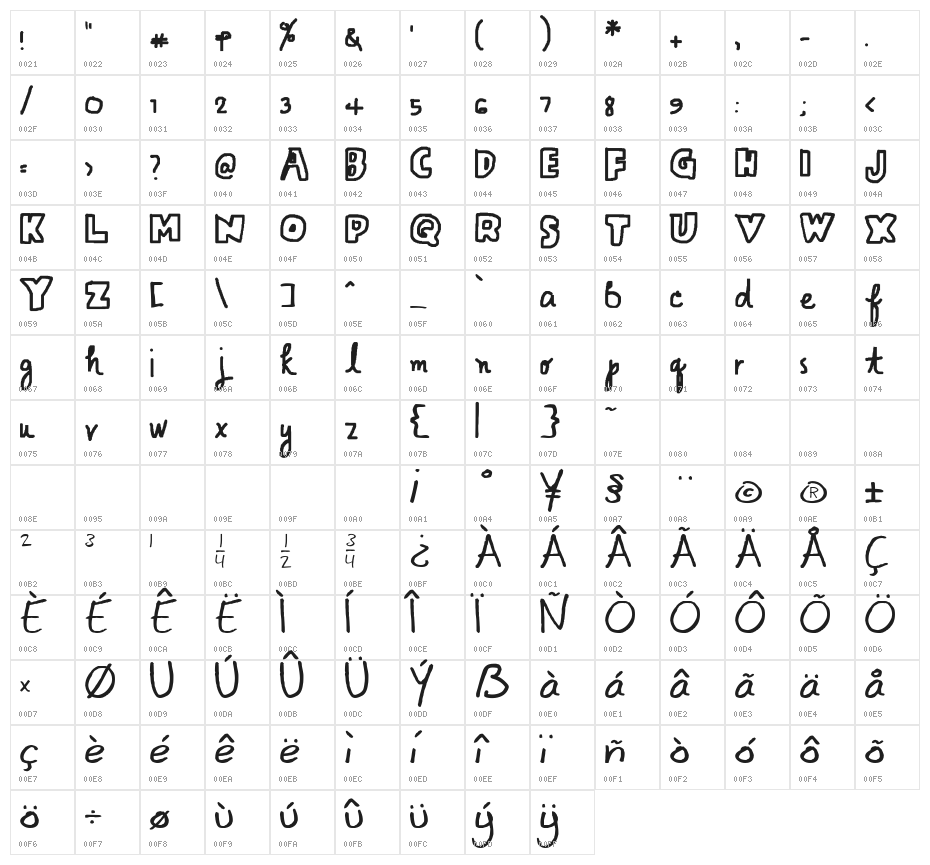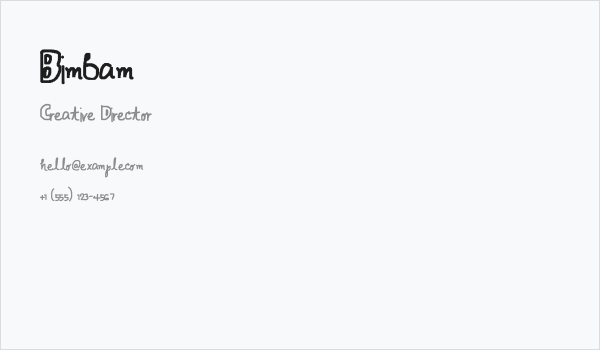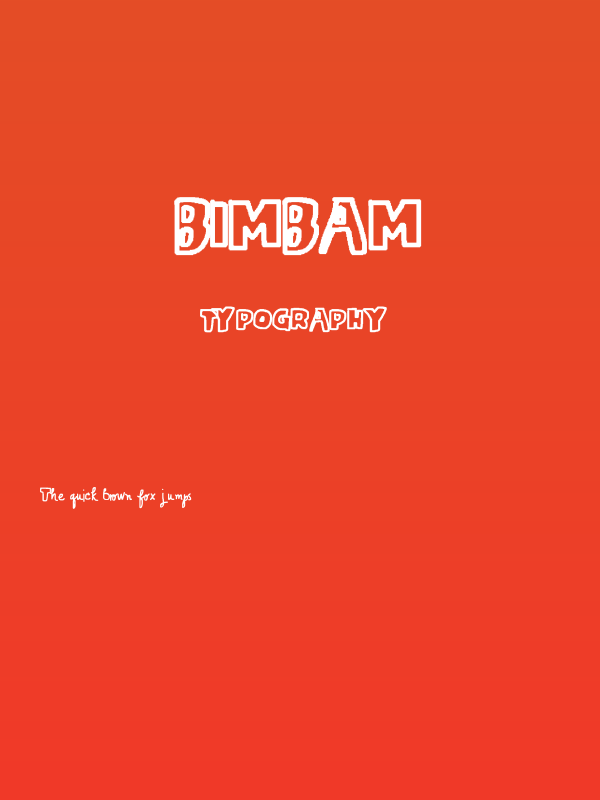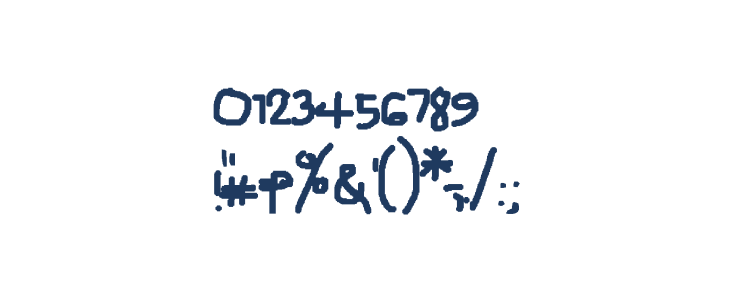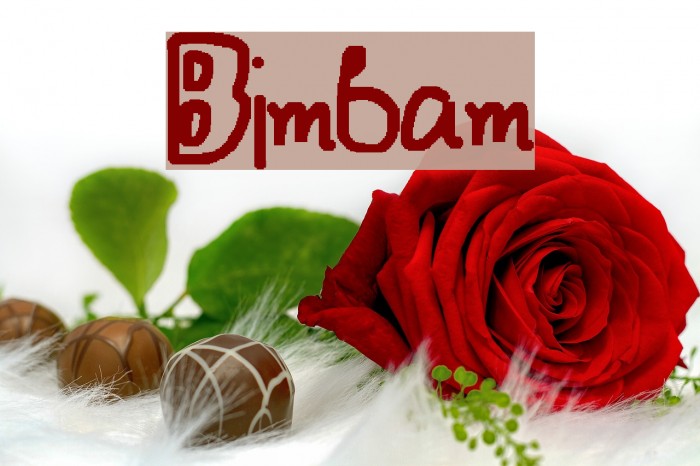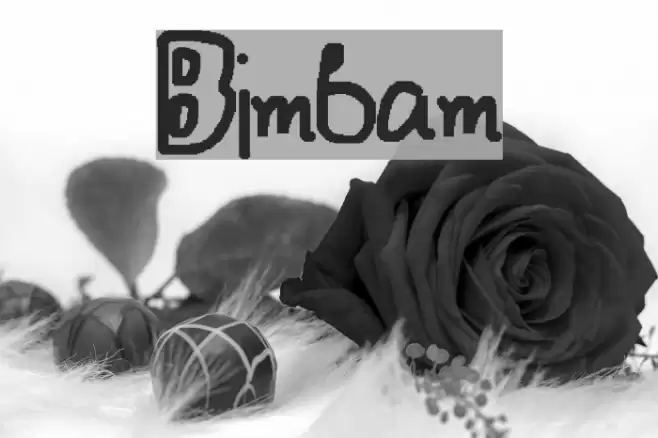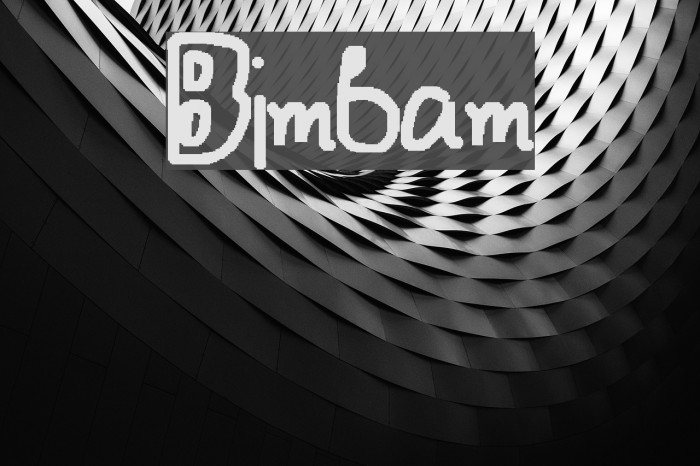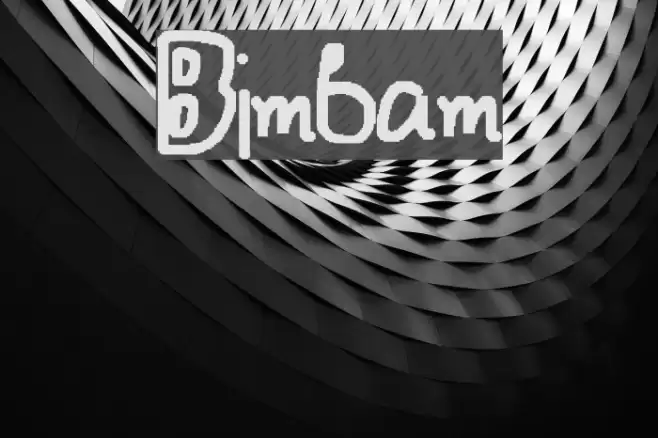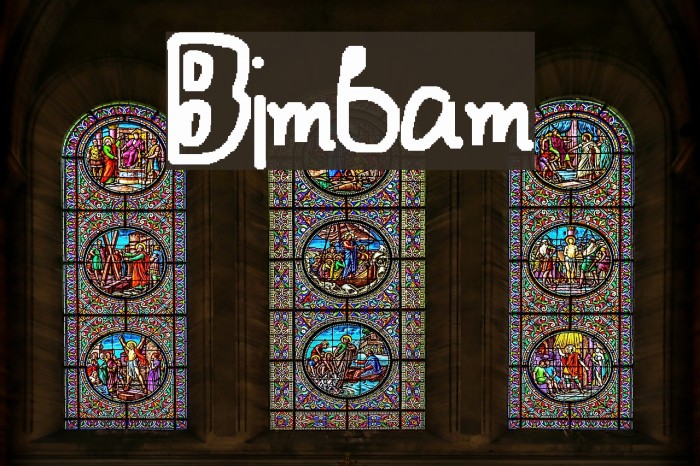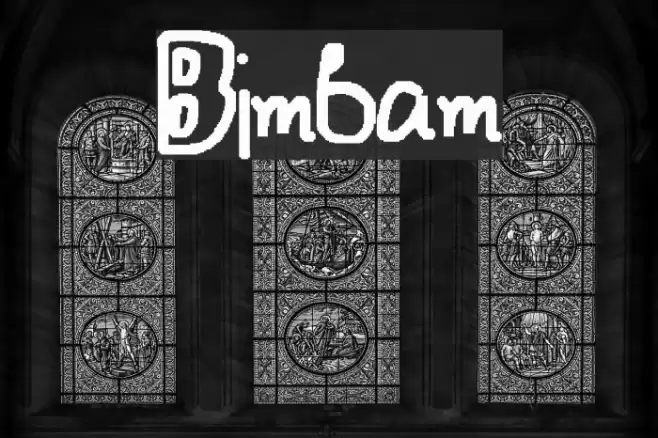
Bimbam Font
Bimbam Description
This font features a playful and dynamic style with a mix of bold, outlined uppercase letters and a more fluid, handwritten lowercase. The uppercase letters have a cartoonish, blocky appearance with thick outlines, making them stand out prominently. In contrast, the lowercase letters are more casual and script-like, adding a whimsical touch. The numbers follow the same playful theme, with a slightly irregular shape that enhances the font's informal character. Special characters maintain the quirky and bold aesthetic, ensuring consistency across all glyphs. This font is ideal for projects that require a fun and engaging visual impact.
| Proposed Projects | Ideal for children's books, comic strips, playful branding, and creative posters. |